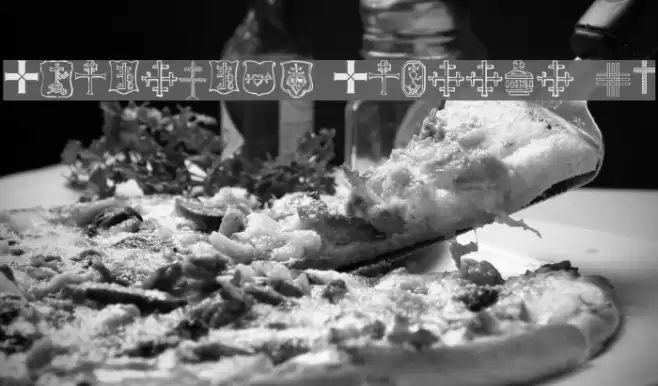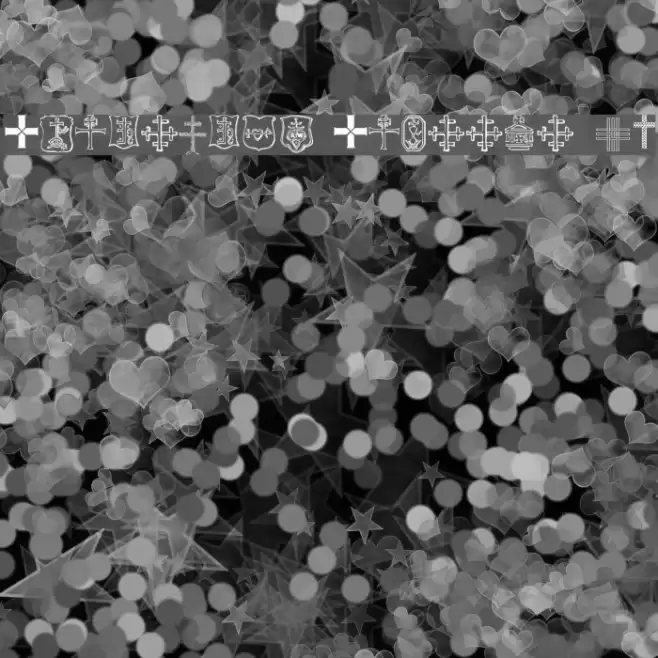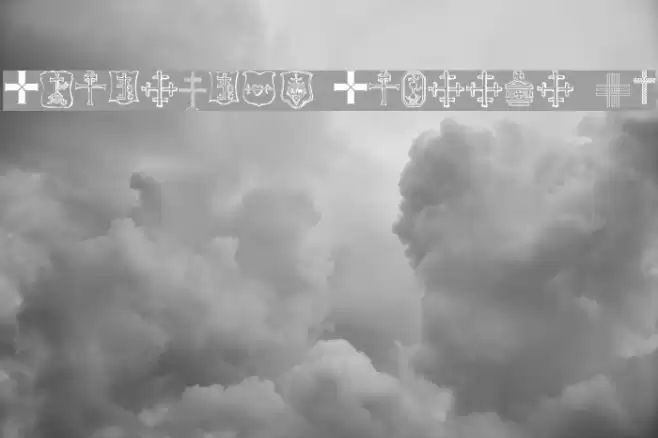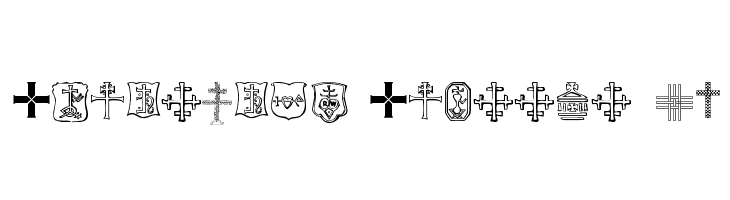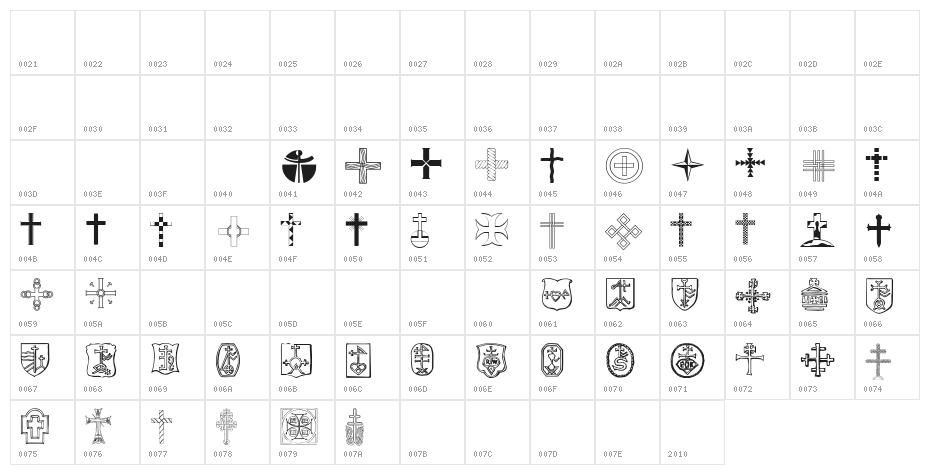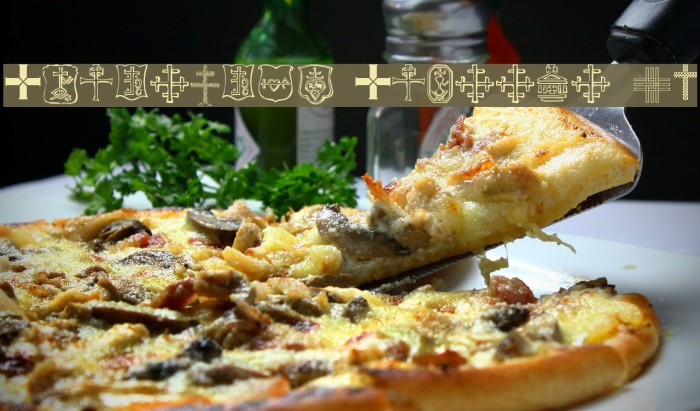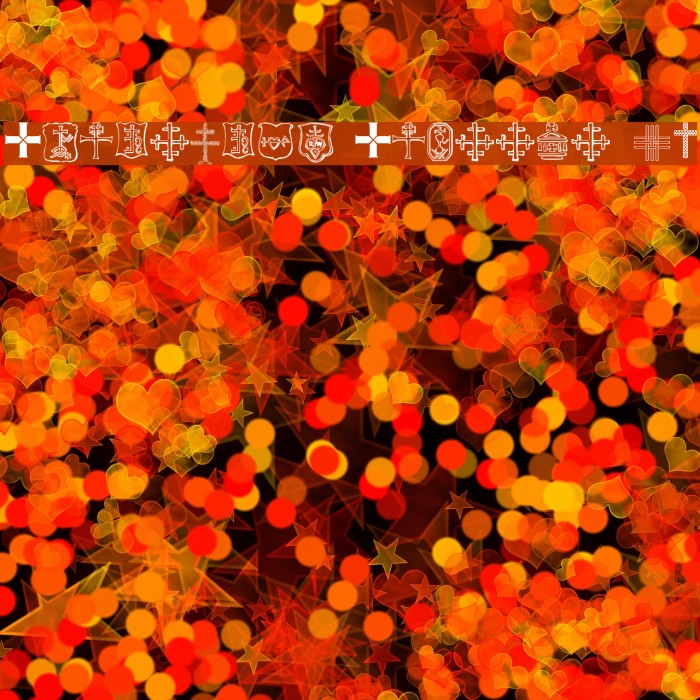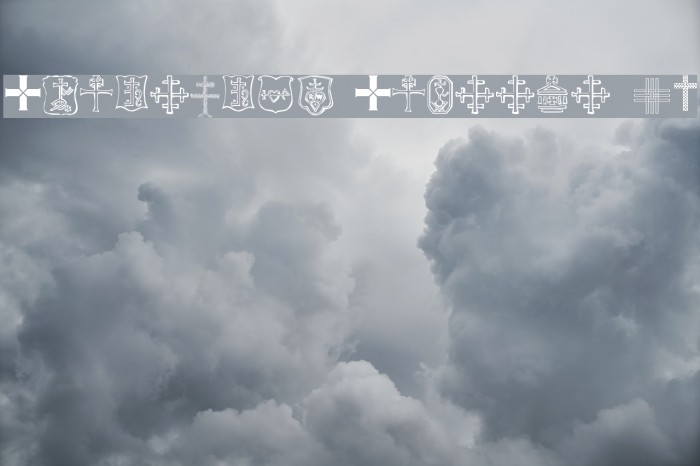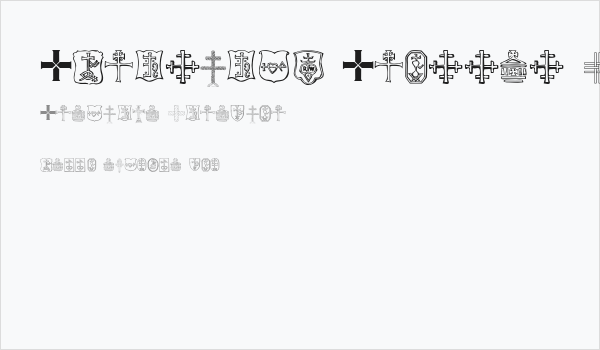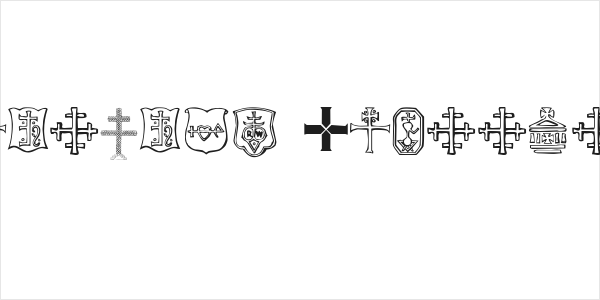
Christian Crosses IV Font
Christian Crosses IV Description
A decorative display font featuring a wide variety of Christian cross symbols, shields, and religious iconography, each glyph uniquely illustrated with intricate line work and diverse styles. The characters are highly stylized, with some enclosed in shields or circles, and others featuring geometric or ornate embellishments.
A symbol font with diverse Christian cross designs and religious motifs from Dingbats fonts.
- Proposed Projects: Religious event flyers, church bulletins, Easter or Christmas cards, faith-based branding, educational materials on Christian symbolism.
- Overall Style: Decorative, Religious, Symbolic
- Use Case: Icons, Logos, Thematic headers, Decorative elements